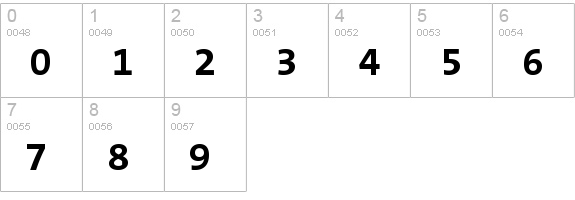
TheSans B7 Bold is a strong, high-contrast variant in the TheSans typeface family \xE2\x80\x94 well suited to headlines, attention-grabbing titles, and strong calls-to-action.
TheSans B7 Bold font is a striking and powerful typeface that exudes confidence and boldness. With its strong and distinct letterforms, it commands attention and makes a statement. The thick strokes and sharp angles give it a modern and contemporary feel, making it perfect for headlines, titles, and logos. What sets TheSans B7 Bold font apart is that it is not only visually impressive, but it is also free. Yes, you read that right! This exceptional font is freely available to download at FontsMarket.com. Whether you're a designer, a content creator, or simply someone who appreciates great typography, you can now enhance your projects with this remarkable font without spending a dime. TheSans B7 Bold font offers versatility and legibility, making it suitable for a wide range of design applications. Its attention-grabbing nature ensures that your message will be delivered with impact and clarity. Whether you're designing posters, brochures, websites, or social media graphics, this font will elevate your designs and make them stand out from the crowd. With its bold and confident appearance, TheSans B7 Bold font is perfect for creating eye-catching headlines and titles. Its strong presence on the page instantly draws attention and leaves a lasting impression. Whether you're designing magazine covers, book titles, or marketing materials, this font will make your text pop and grab the reader's attention. Download TheSans B7 Bold font today from FontsMarket.com and discover the power of this exceptional typeface. With its striking design, versatility, and the fact that it's freely available, this font is a must-have for any designer's toolkit. Don't miss out on the opportunity to enhance your projects with this remarkable font. Download TheSans B7 Bold font today and take your designs to the next level.